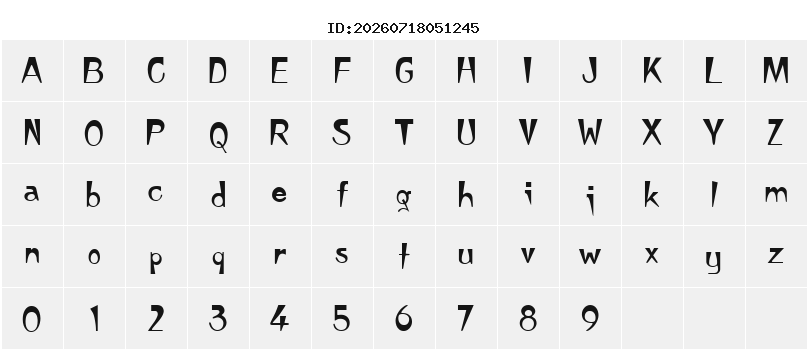
Chonk Preview
• Font Name: Chonk
• Full Font Name: Chonk
• PostScript Name: Chonk
About Chonk.ttf
Chonk.ttf is a modern, elegant sans-serif font designed for ultimate readability and visual harmony. Perfect for branding, headlines, web design, and print materials.